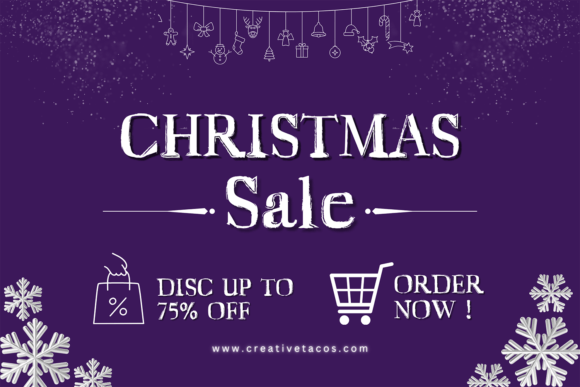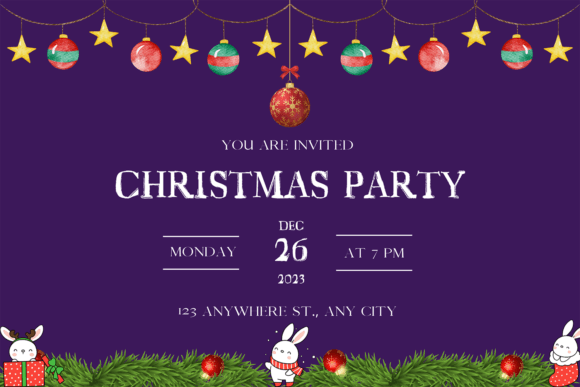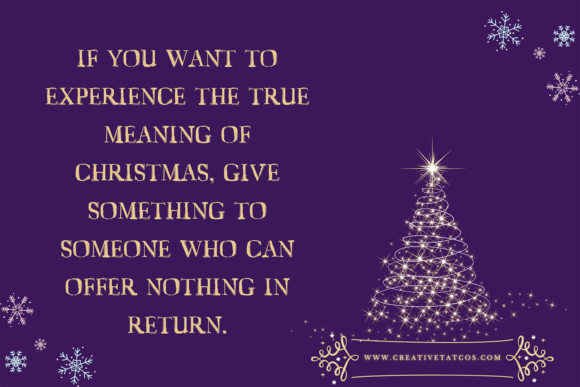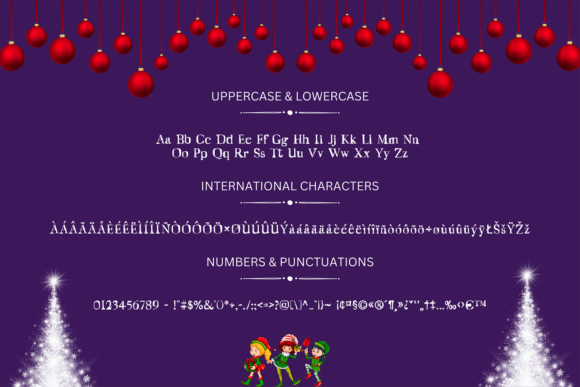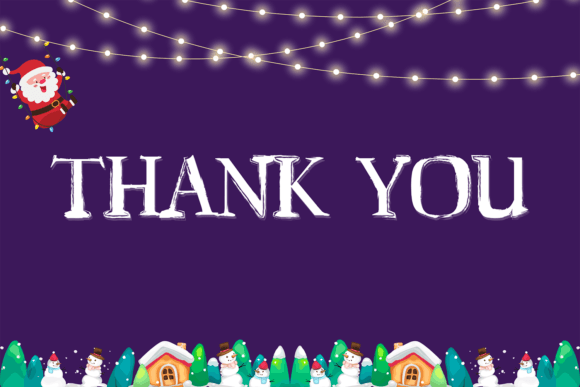
Introducing the Adriene Christmas Font: A Festive Touch for Your Holiday Projects
Are you looking for a unique and charming typeface to add a festive touch to your holiday projects? Look no further than the Adriene Christmas Font! This delightful font is sure to make a statement and capture the spirit of the season. In this article, we’ll take a closer look at the Adriene Christmas Font, its features, and how to use it effectively in your designs.
A Unique and Charming Typeface
The Adriene Christmas Font is a one-of-a-kind typeface that is sure to add a touch of festive cheer to your holiday projects. With its intricate details and charming design, this font is perfect for creating eye-catching headlines, headings, and titles. Whether you’re designing a holiday card, gift tag, or festive banner, the Adriene Christmas Font is sure to make your project stand out.
Features of the Adriene Christmas Font
The Adriene Christmas Font is a comprehensive typeface that includes both uppercase and lowercase letters, as well as numbers, punctuation, and multilingual support. This means that you can use the font to create a wide range of designs, from simple holiday greetings to more complex, multilingual projects. The font is also highly versatile, making it perfect for use in a variety of design applications, from digital projects to print materials.
Using the Adriene Christmas Font Effectively
When using the Adriene Christmas Font, it’s essential to consider the overall design and layout of your project. This font is best suited for larger sizes, such as headlines or headings, where the intricate details can be fully appreciated. For smaller text, it may be beneficial to use a simpler, more legible font to ensure readability.
Tips for Using the Adriene Christmas Font
• Use it for headlines and headings: The Adriene Christmas Font is perfect for creating eye-catching headlines and headings. Use it to add a festive touch to your holiday projects and make them stand out.
• Pair it with a simpler font: For smaller text, pair the Adriene Christmas Font with a simpler, more legible font to ensure readability.
• Experiment with different sizes: Don’t be afraid to experiment with different sizes and layouts. The Adriene Christmas Font can be used in a variety of design applications, from digital projects to print materials.
• Take advantage of multilingual support: The Adriene Christmas Font supports multilingual characters, making it perfect for creating designs for a global audience.
The Adriene Christmas Font is perfect for designers and crafters looking to add a festive touch to their holiday projects. Whether you’re creating digital projects, such as social media graphics and holiday e-cards, or print materials, like gift tags and holiday cards, this font is sure to make your project stand out.
Digital Project Ideas
• Holiday social media graphics: Use the Adriene Christmas Font to create eye-catching social media graphics that will make your followers smile.
• Holiday e-cards: Create festive holiday e-cards that will delight your friends and family.
• Digital holiday invitations: Use the Adriene Christmas Font to create digital holiday invitations that will set the tone for your holiday party.
Print Project Ideas
• Holiday cards: Create beautiful holiday cards that will make your loved ones feel special.
• Gift tags: Use the Adriene Christmas Font to create festive gift tags that will add a personal touch to your gifts.
• Holiday banners: Create eye-catching holiday banners that will add a festive touch to your holiday decor.
Font Name Adriene Font
The Adriene Christmas Font is a unique and charming typeface that is sure to add a festive touch to your holiday projects. With its intricate details, charming design, and multilingual support, this font is perfect for designers and crafters looking to create eye-catching holiday designs. By following the tips outlined in this article, you’ll be able to use the Adriene Christmas Font effectively and create holiday projects that will delight your audience.